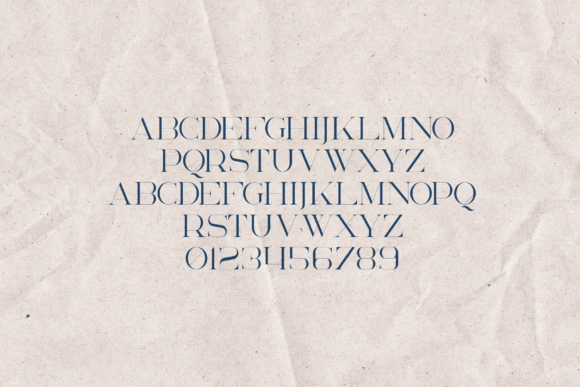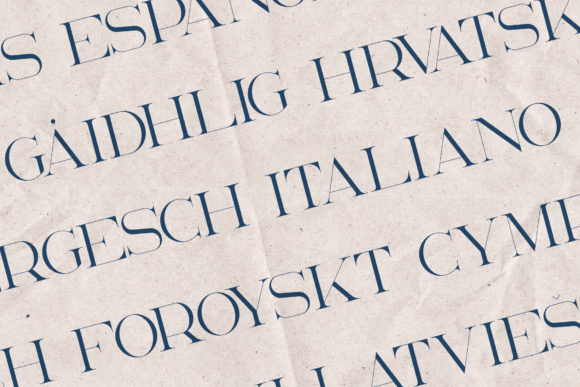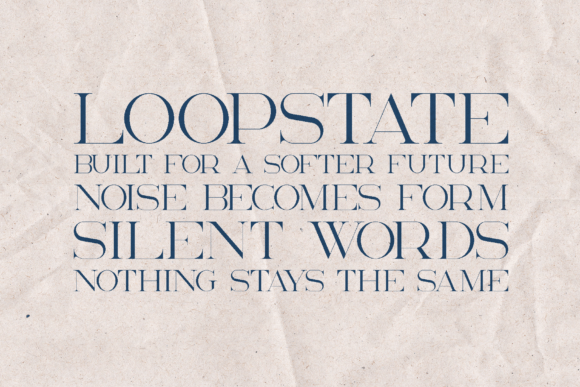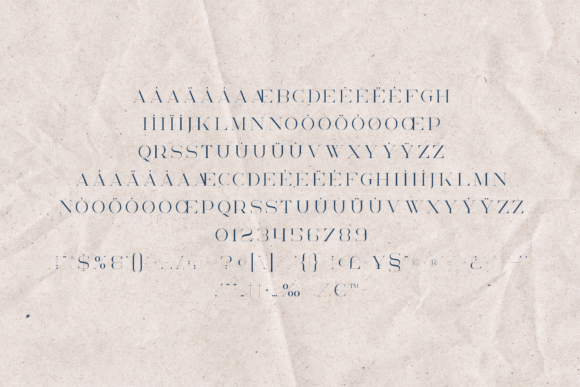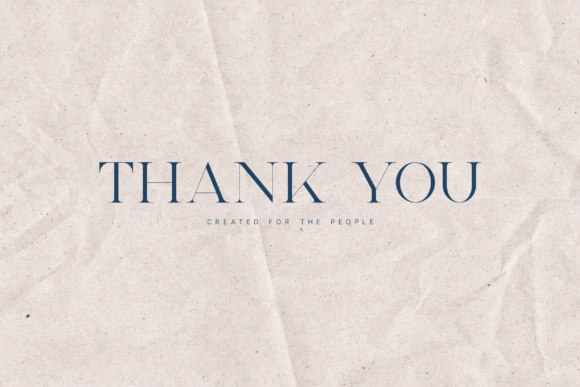
The Elegance of Akros Font: A Designer’s Dream Come True
I’ll never forget the time I was working on a luxury branding project for a high-end beauty client. I had spent hours pouring over design concepts, but something was missing. The design felt flat, and I couldn’t quite put my finger on what it needed. That’s when I stumbled upon the Akros font. With its slender proportions, sharp terminals, and refined contrast, Akros delivered a modern classic aesthetic that felt intellectual, calm, and timeless. It was like a breath of fresh air – the perfect combination of elegance and sophistication.
An Honest Review of Akros Font
What I Love About Akros ✨
- ✨ Precision and balance: Akros is a “high-contrast” masterpiece that celebrates the beauty of dramatic transition.
- ✅ Refined contrast: The sharp, razor-thin hairlines balanced against bold, structural stems create a rhythm that is both energetic and polished.
- ✅ Timeless aesthetic: Akros delivers a modern classic look that feels intellectual, calm, and sophisticated.
- ✅ Versatility: Akros excels in large-scale applications such as billboard headlines, book covers, and luxury packaging.
While Akros is an exceptional font, there are a few things to keep in mind:
- ⚠️ Legibility at small sizes: Akros may not be the best choice for body text or small font sizes, as its intricate details can be lost.
- ⚠️ Pairing with other fonts: Akros can be quite dominant, so it’s essential to pair it with a complementary font that won’t compete for attention.
- 🤔 Overuse of OpenType features: While Akros offers a range of OpenType features, overusing them can make the text look cluttered and messy.
The Story Behind Akros Font
Akros was designed by a team of typographers who sought to create a font that embodied the perfect balance of elegance and sophistication. Inspired by the works of classic typographers, they poured their hearts and souls into creating a font that would be both timeless and modern. The result is a font that is both refined and dramatic, perfect for luxury branding and high-end design projects.
| What is the best way to use Akros font? | Akros excels in large-scale applications such as billboard headlines, book covers, and luxury packaging. |
| Can I use Akros for body text? | While Akros is an exceptional font, it may not be the best choice for body text or small font sizes, as its intricate details can be lost. |